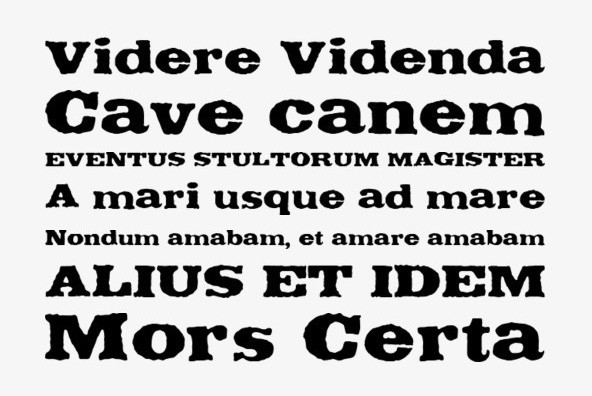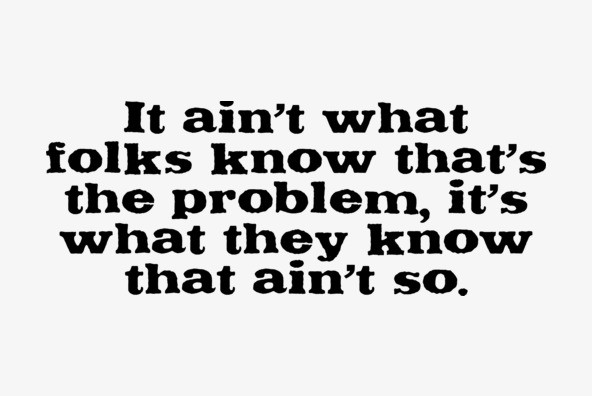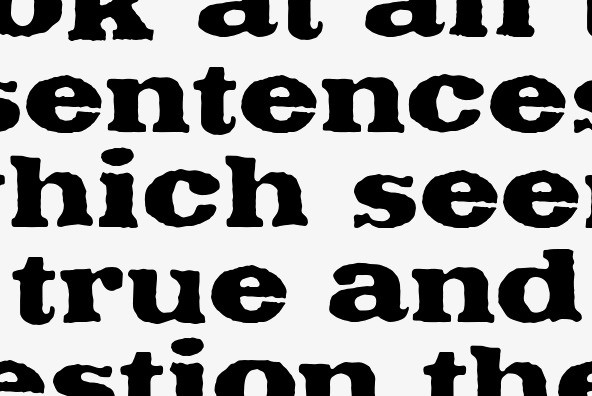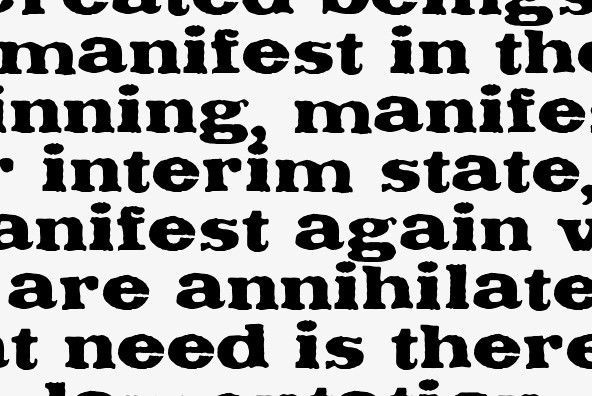
Sandberg Honorarium
Foundry: Wordshape
Sandberg Honorarium is inspired by the work of Dutch typographer Willem Sandberg. Sandberg frequently used large display lettering made from torn paper in his early compositions, and this typeface is an homage to his working method.